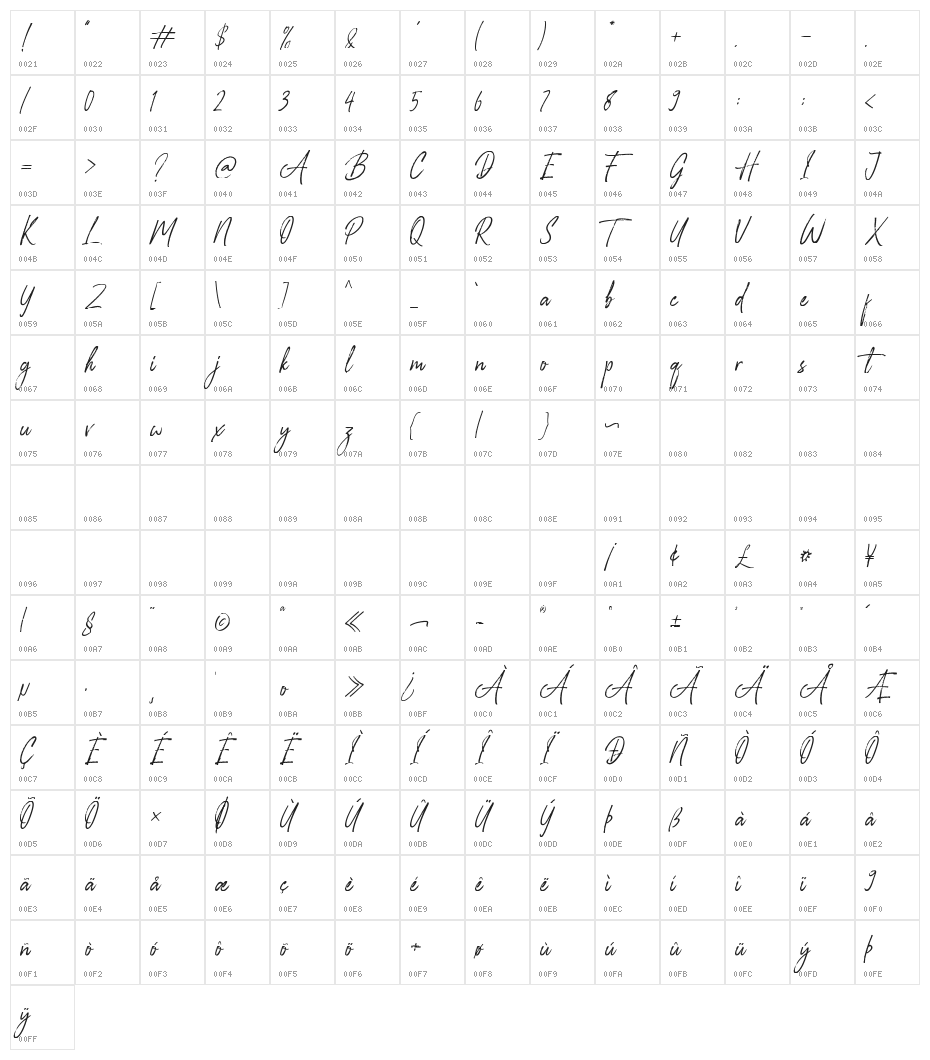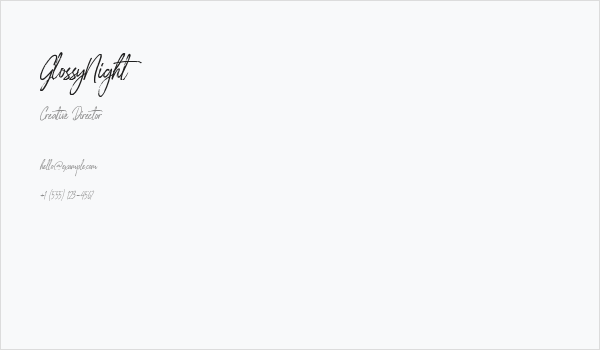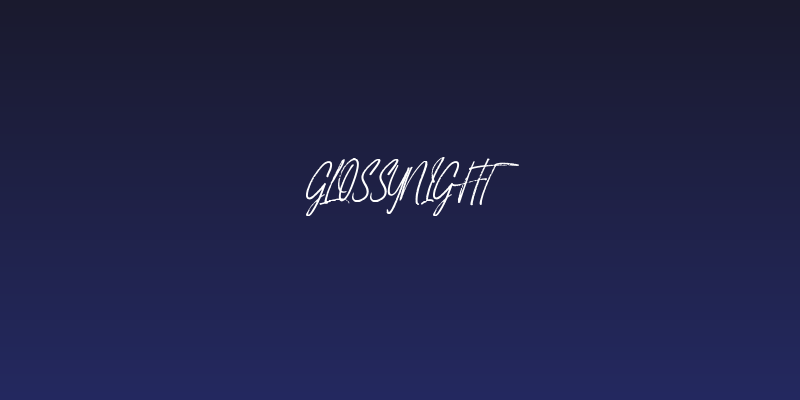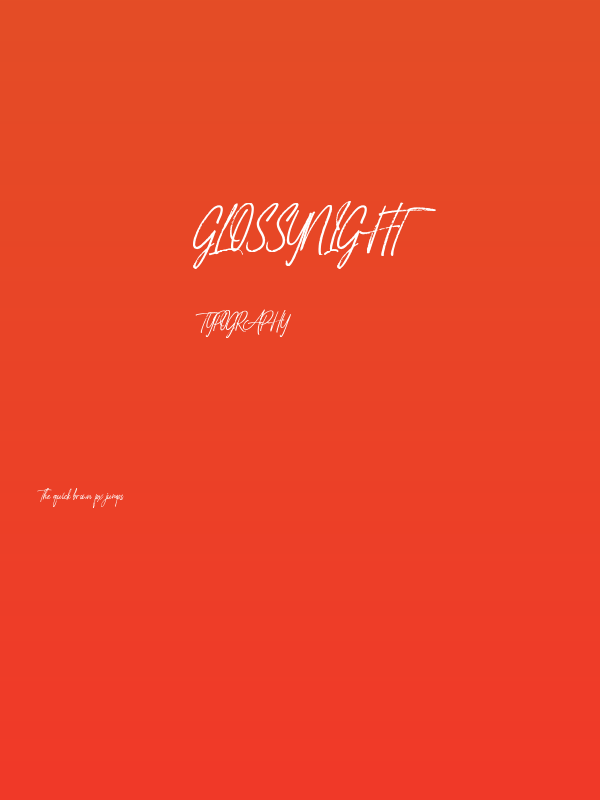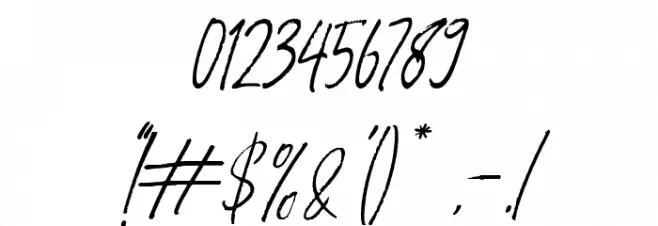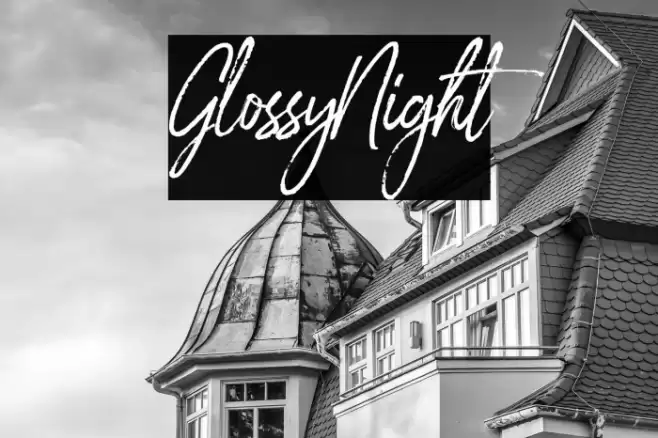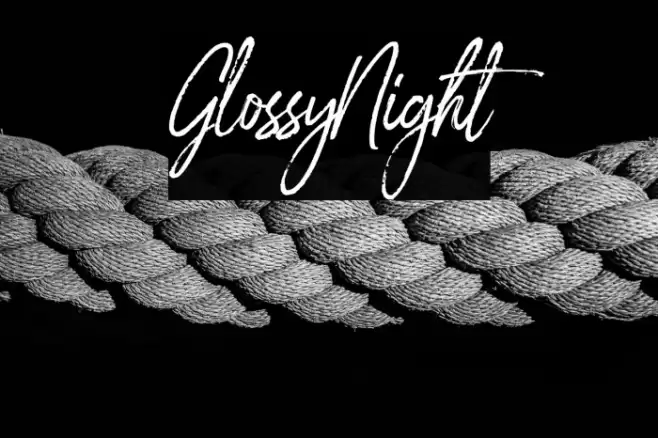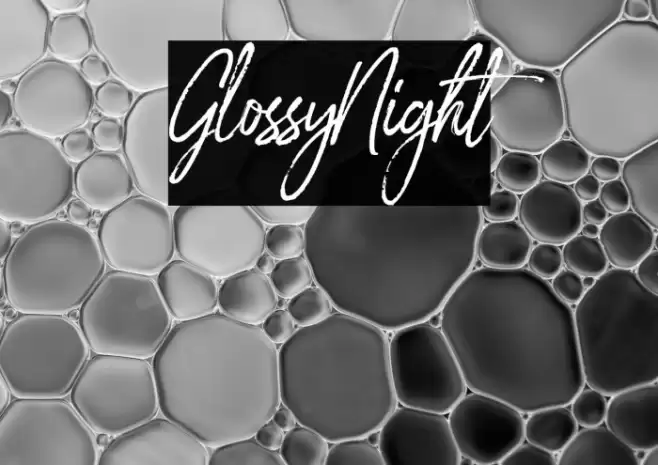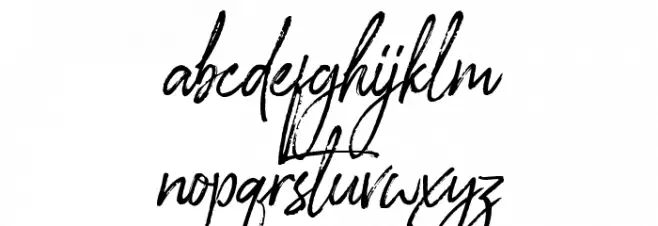
GlossyNight Font
GlossyNight Description
This font exudes a dynamic and expressive style, characterized by its flowing, cursive script that mimics the fluidity of handwritten text. The letters are elegantly elongated with a slight slant, giving it a sense of motion and grace. The strokes vary in thickness, adding a lively contrast that enhances its artistic flair. The uppercase letters are bold and prominent, while the lowercase letters maintain a consistent fluidity. Numbers and special characters are crafted with the same attention to detail, ensuring a cohesive look throughout. This font is perfect for projects that require a personal touch or a creative edge.